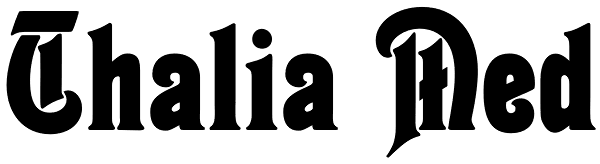
Thalia
Thalia is a wonderful Art Deco typeface design reminiscent of 1900. Very likely, it was originally designed at that time. Unger redesigned the typeface based on old prints, completed the character set and expanded the typeface to cover the full...